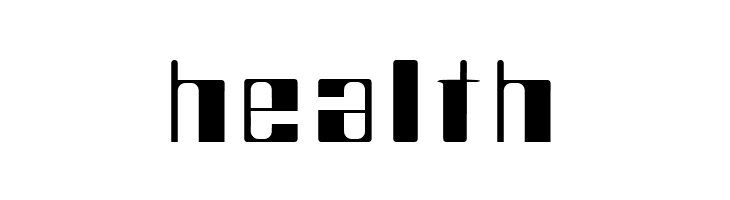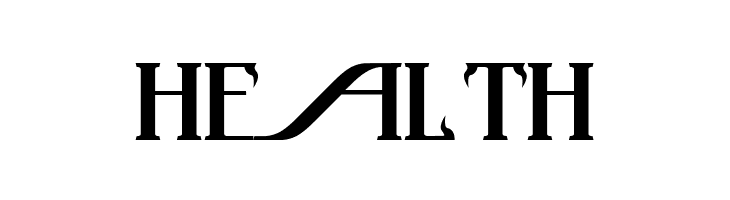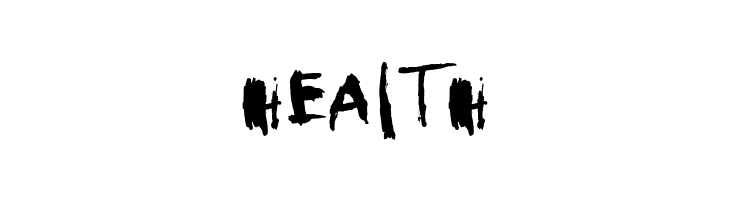
A bold, futuristic font with geometric and avant-garde design elements.
A futuristic, geometric font with bold, angular characters.
A futuristic, geometric font with bold, angular shapes and a sci-fi aesthetic.
A playful and eclectic font with unique, decorative characters.
A bold, expressive font with brush-like strokes and irregular forms.